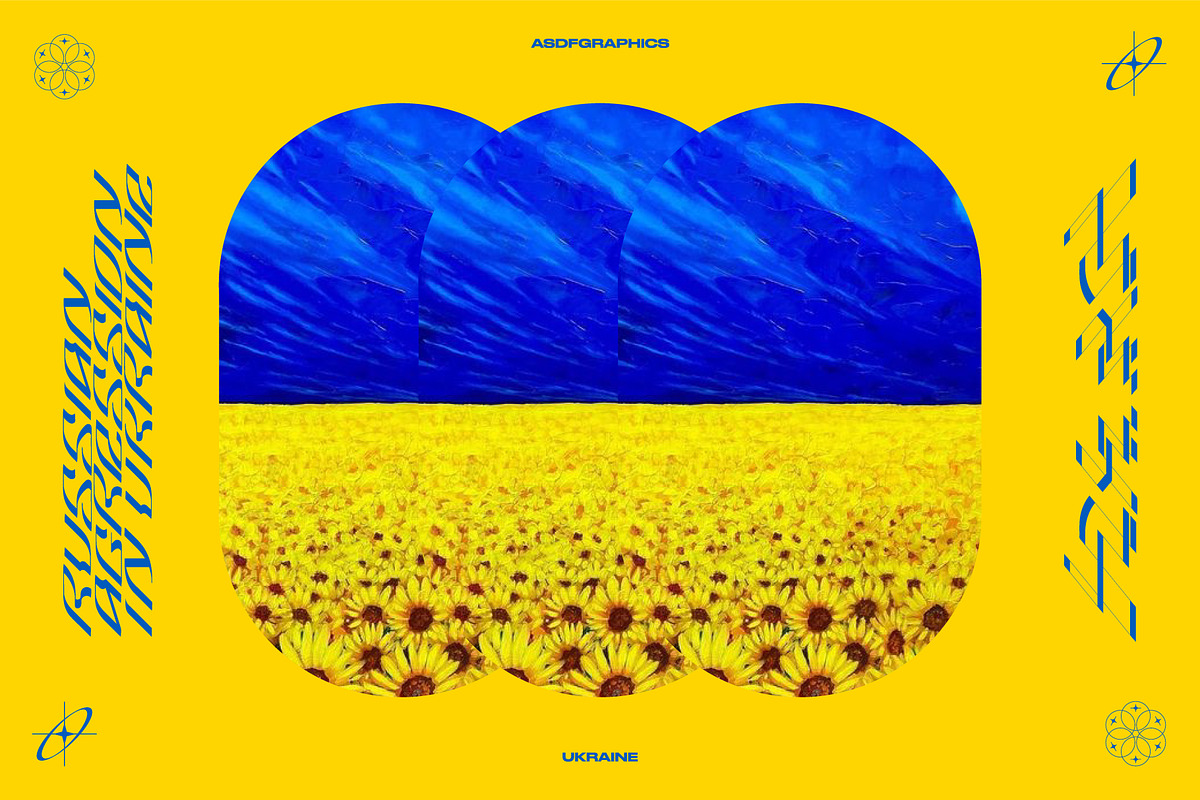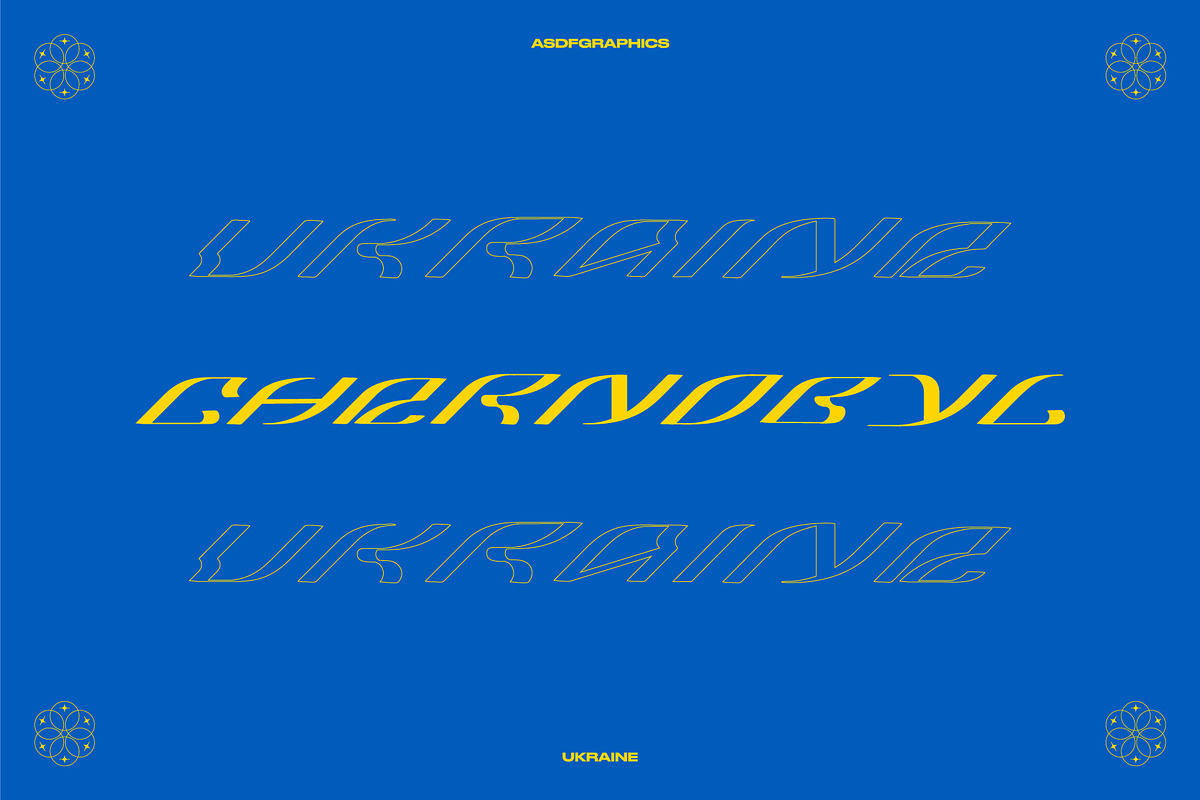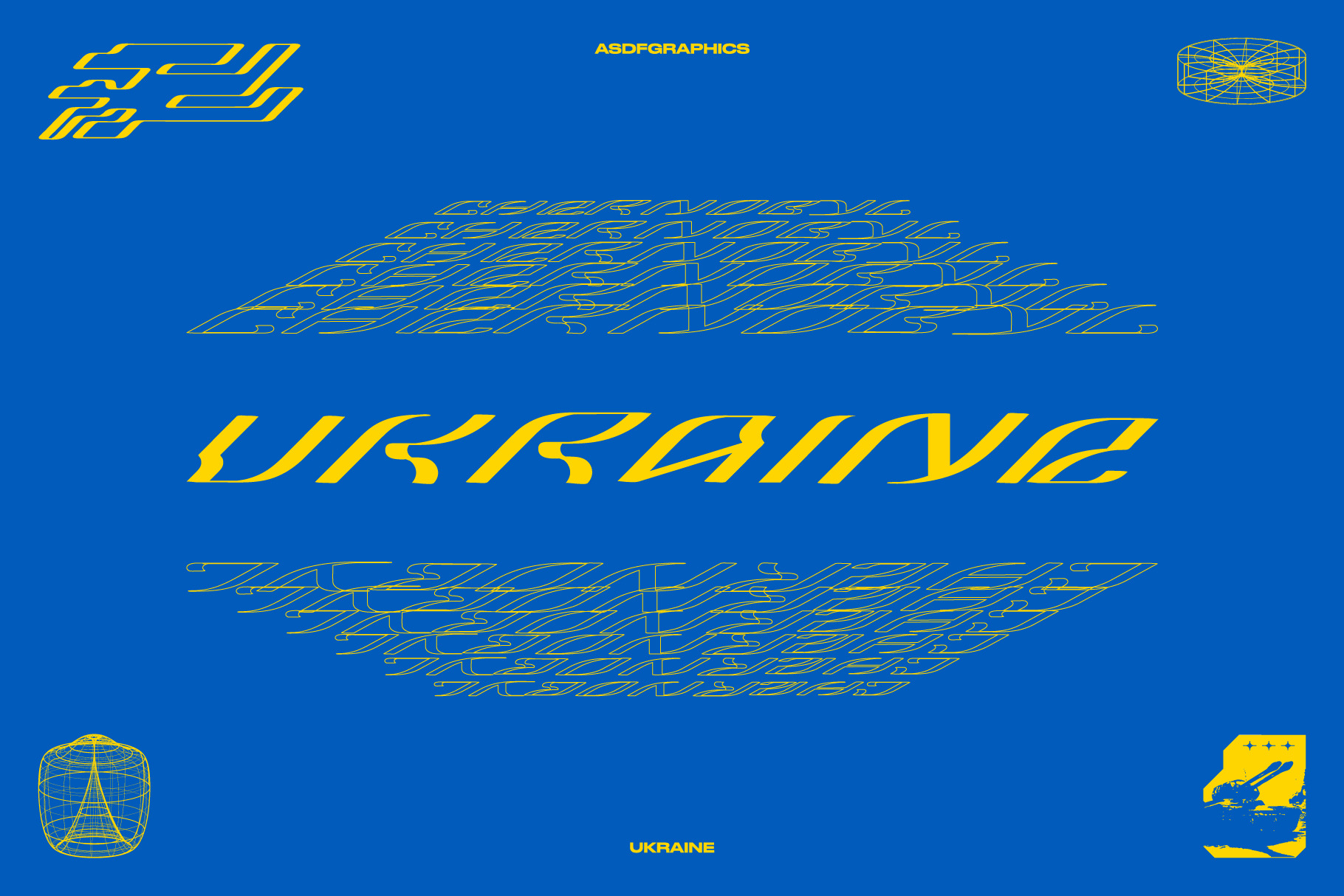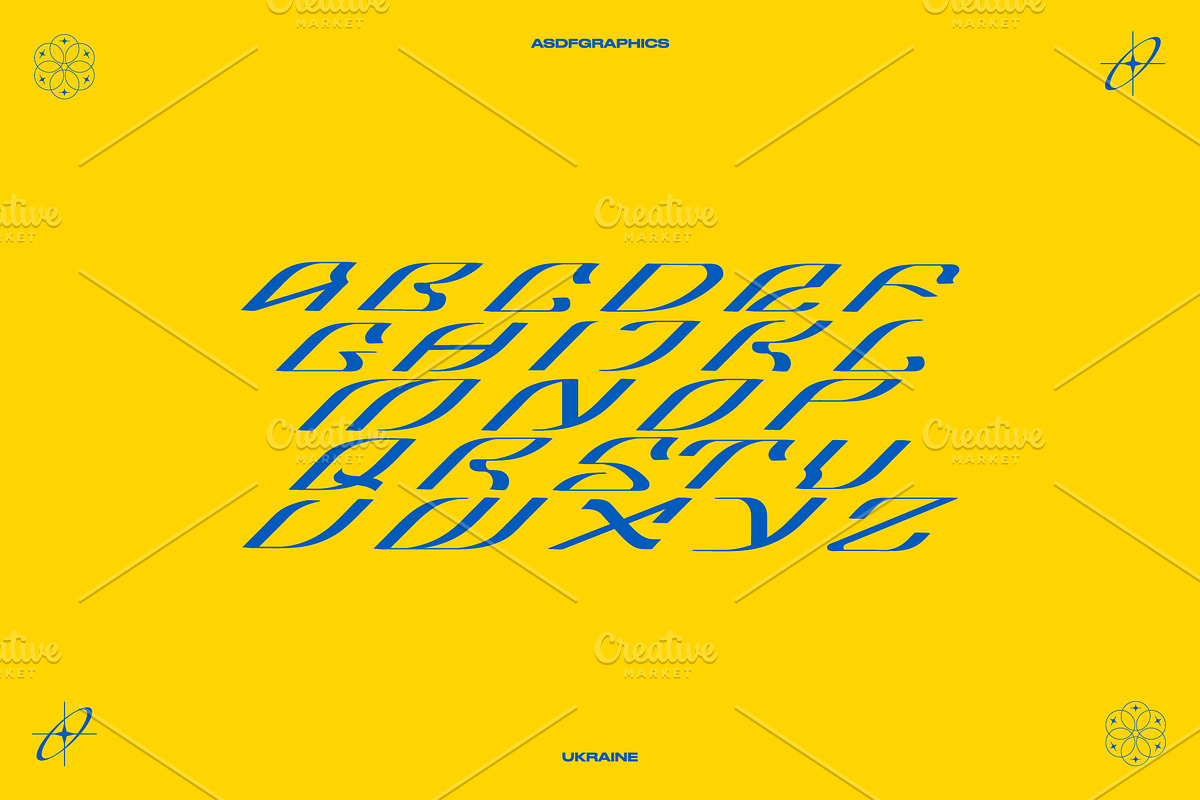
UKRAINE FONT ACID TECHNO GRAPHICS
UKRAINE FONT - ACID GRAPHICS TYPOGRAPHY TECHNO RAVE 2022 Typeface.
A contemporary hybrid of blackletter and serif, retaining the elegance and style. Made for text display purposes, Ukraine Typeface brings a modern , gothic , sharp and strong impression to your design and graphics . With a bold acid style, suitable as the main text / header text on a poster , music artworks , website or t-shirt print, book cover et.